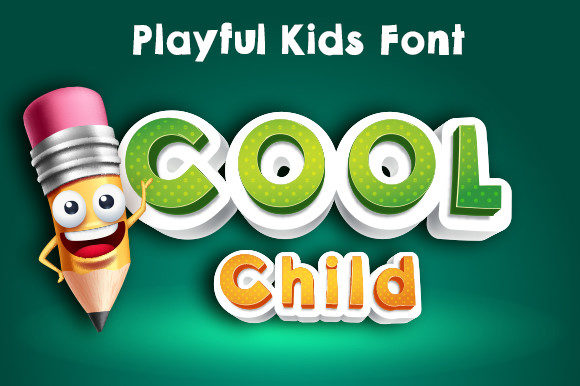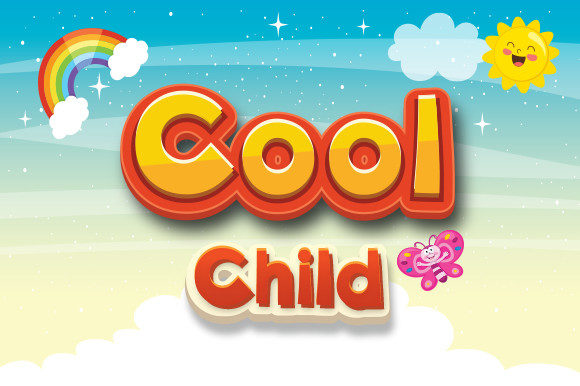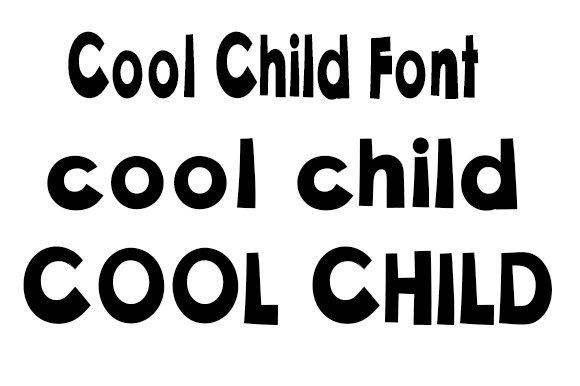
Cool Child Font: A Playful Display Font for Kids & Creative Designs
About the Cool Child Font
Explore the possibilities with Cool Child Font, a font that offers both beauty and functionality. Cool Child is a fun and friendly display font. Whether you are using it for cartoon-related designs, children’s games, quotes, titles, brand names, book covers, posters, or just any creation that requires a touch of beauty, this font is a great choice.
Cool Child’s playful energy makes it ideal for headlines, logos, and short-form text in children’s book illustrations, branding for playful products, and posters for events targeting a younger audience. Avoid using it for body text or lengthy paragraphs; its quirky character isn’t suited to extended readability.
Its friendly, yet slightly bold personality pairs well with clean sans-serif fonts like Open Sans for body copy, creating a balanced contrast. For a more sophisticated feel, consider pairing it with a classic serif like Garamond for secondary text elements. A geometric sans-serif like Montserrat could also offer a modern counterpoint.
Cool Child projects a fun, approachable, and slightly mischievous tone, making it unsuitable for projects requiring elegance or seriousness.
Cool Child Font Usage Examples
Cool Child Font Example